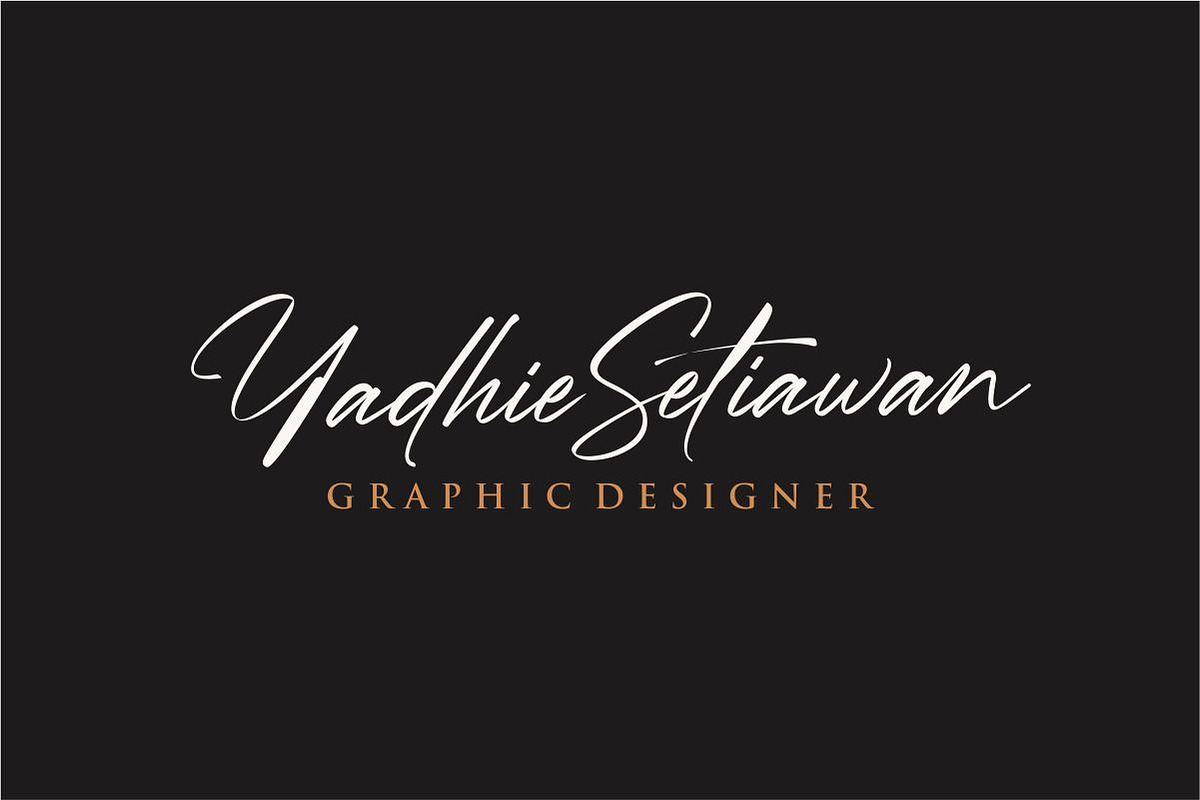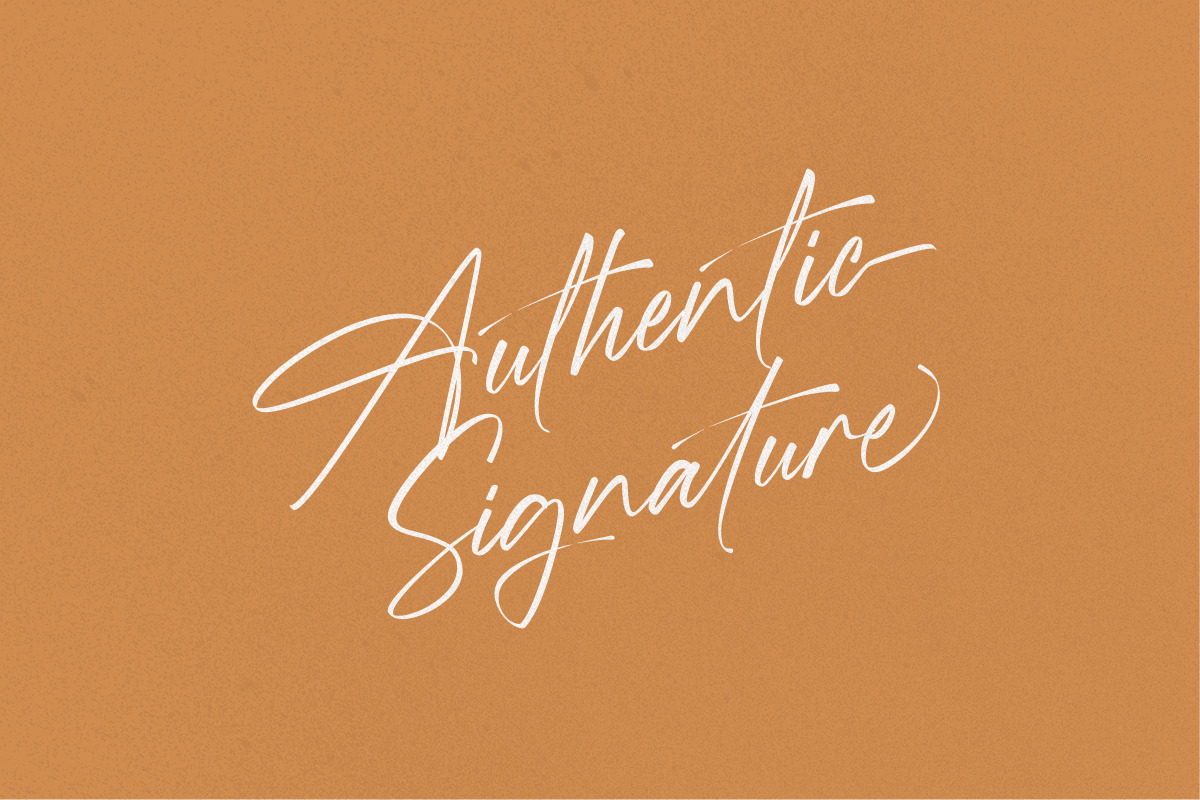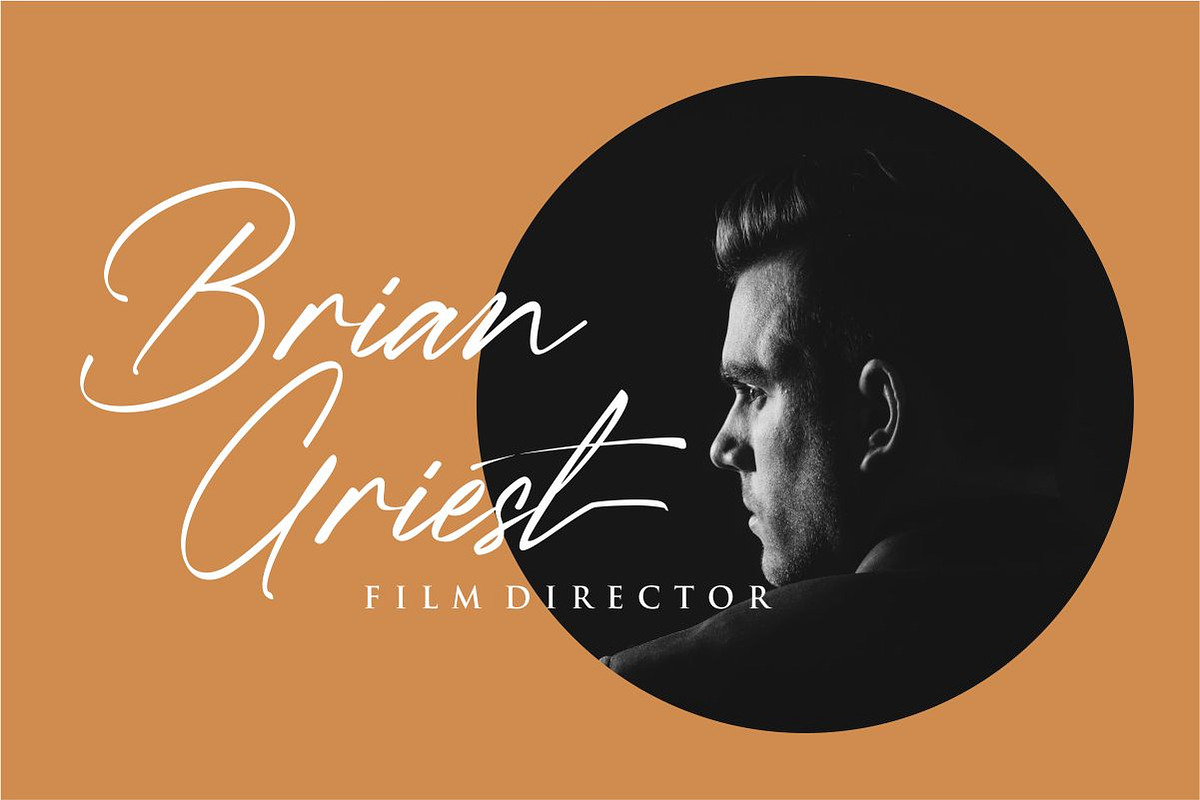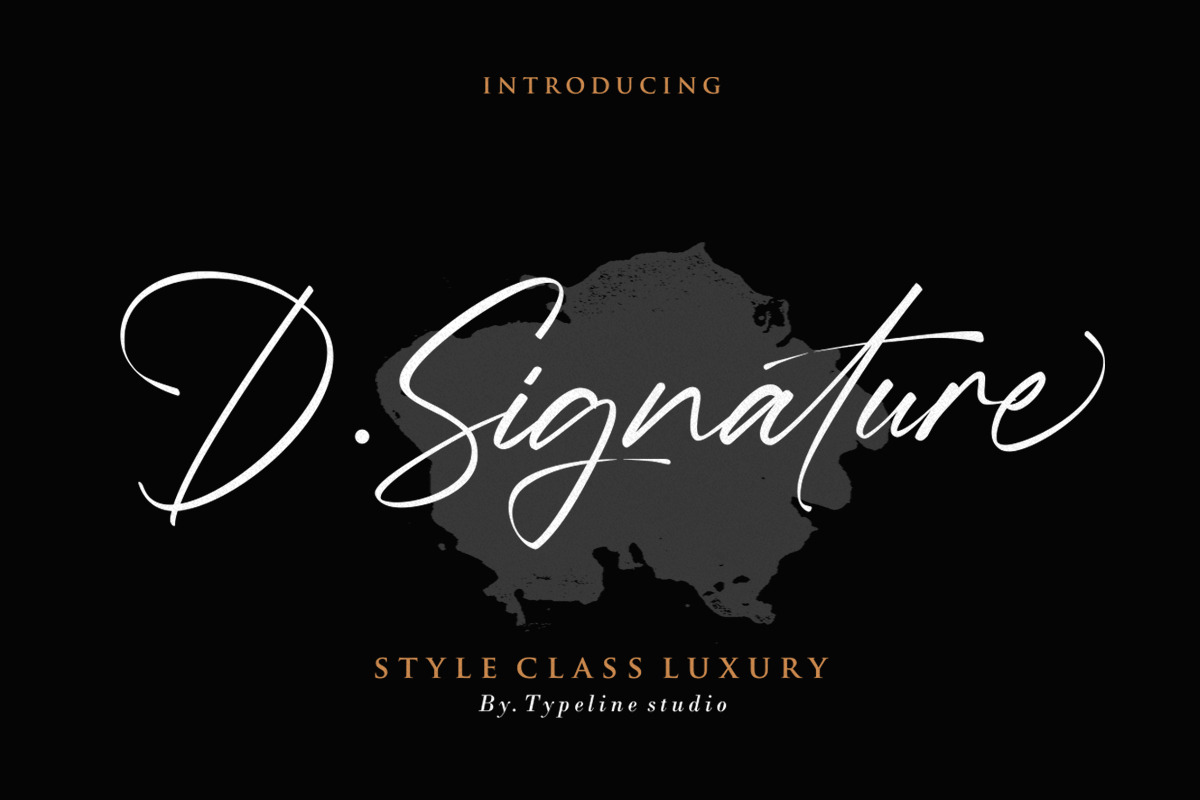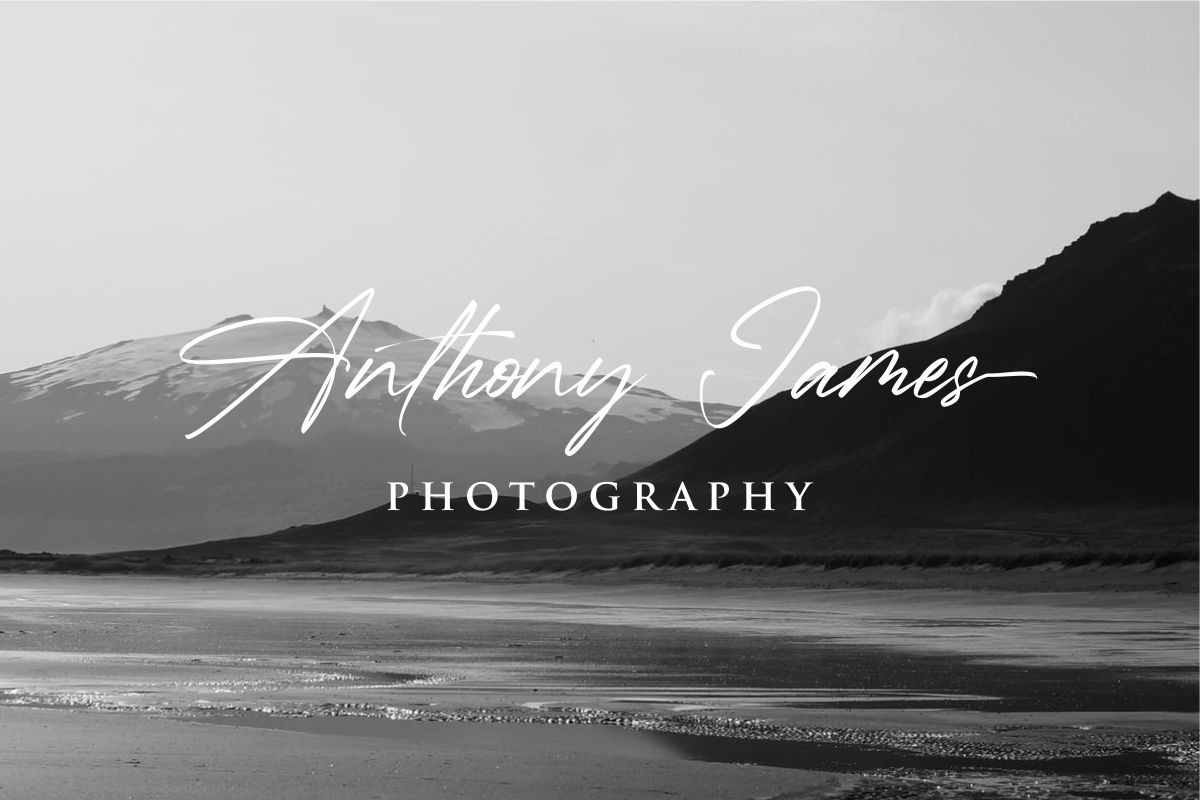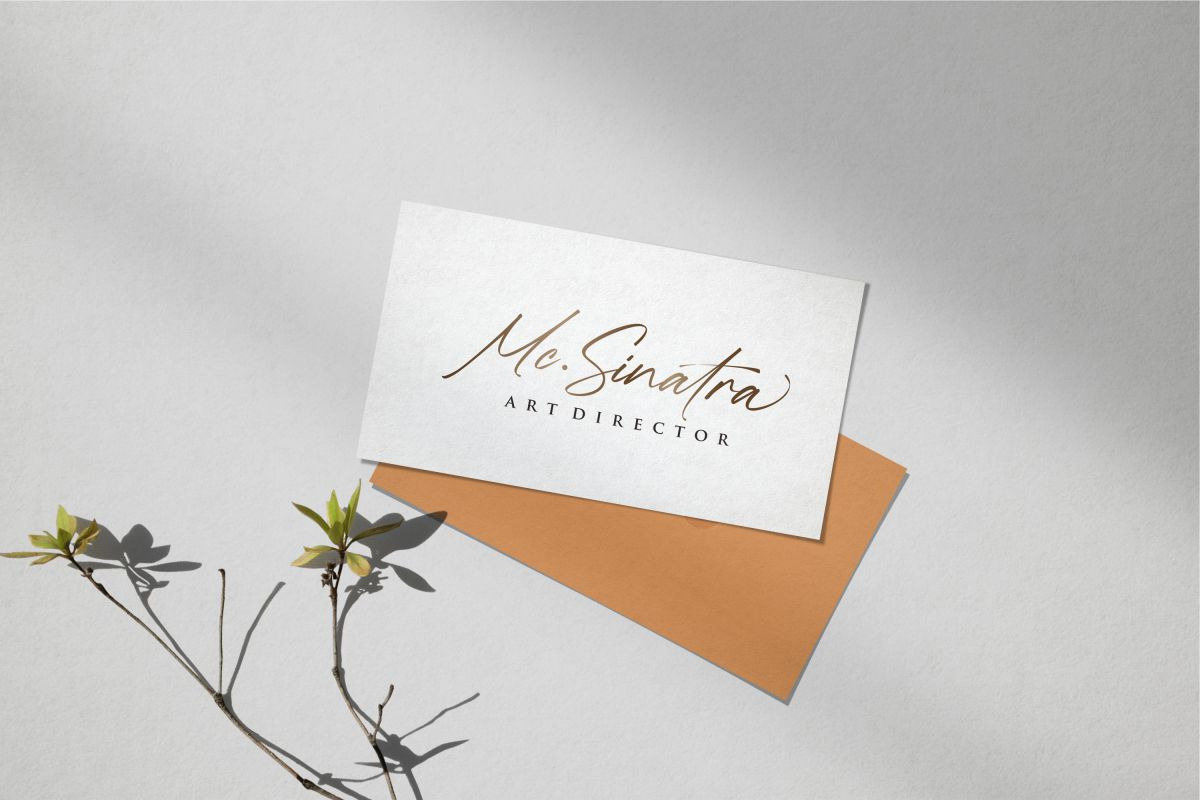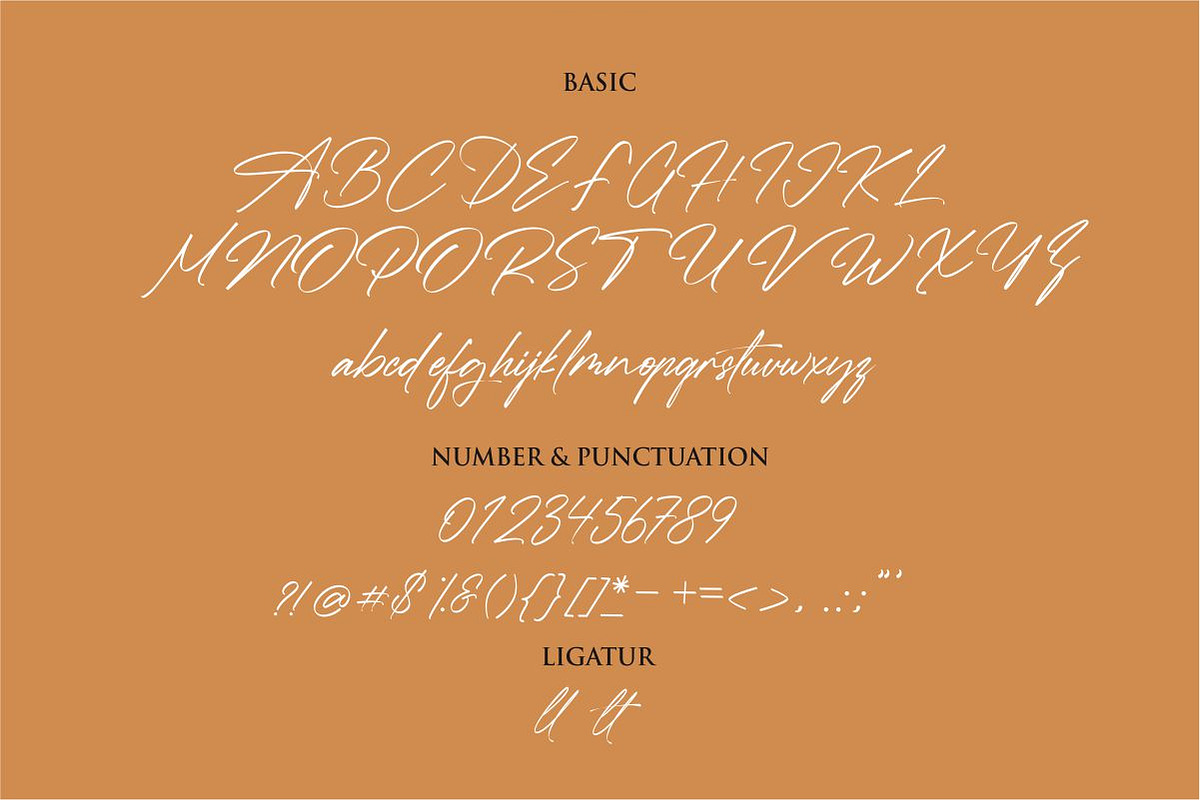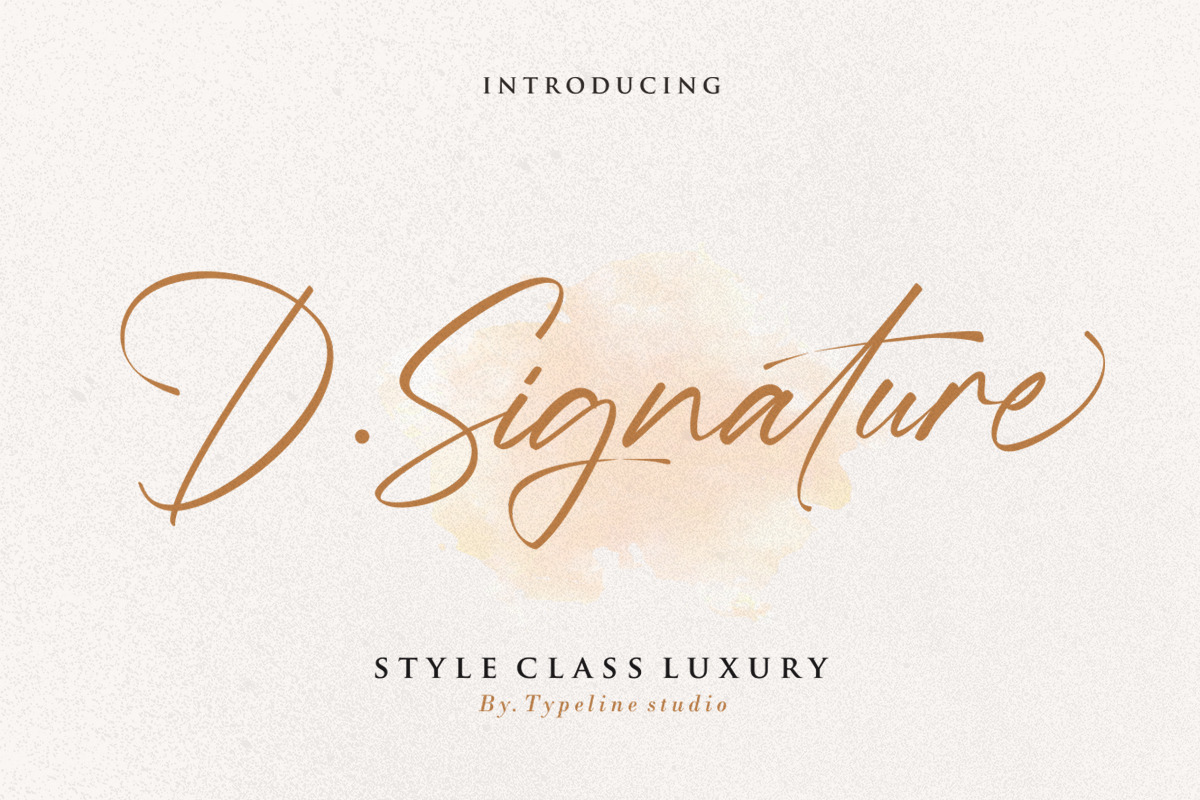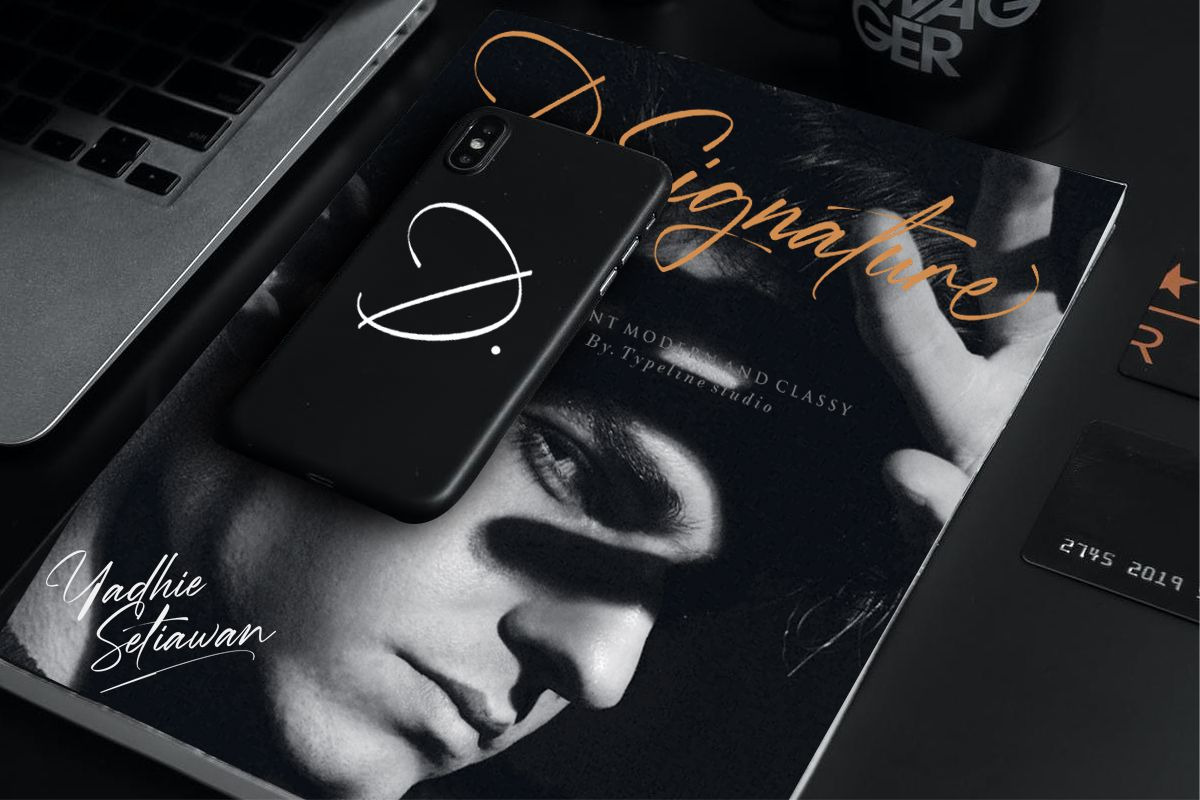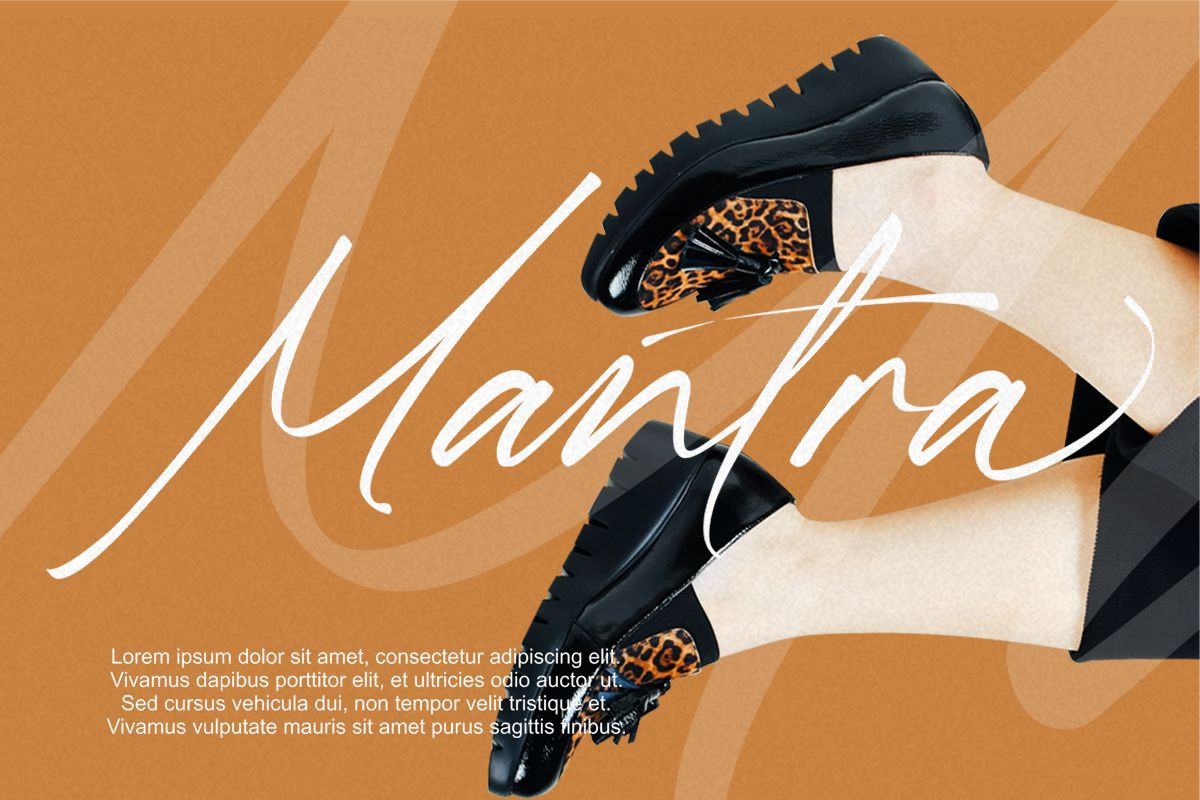
D.Signature Font
D.Signature is a new font that we created for the needs of writing names or logos for both personal and company, not too many styles but still classy and has a very unique style.
D.Signature includes full set of hand lettered uppercase and lowercase letters, numerals, a large range of punctuation and ligatures. All lowercase letters include ending swashes, giving realistic hand-lettered style. What you get, darling?